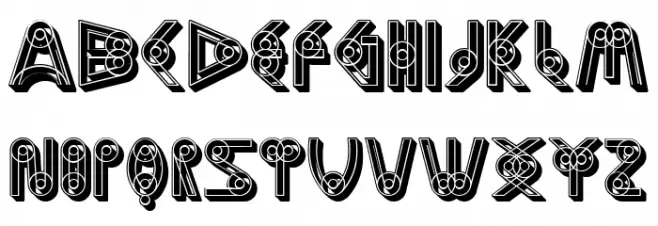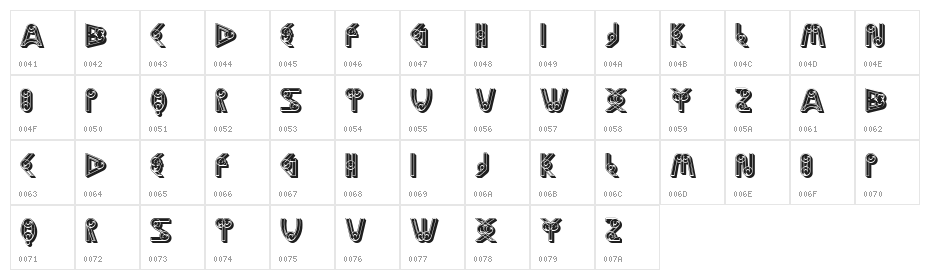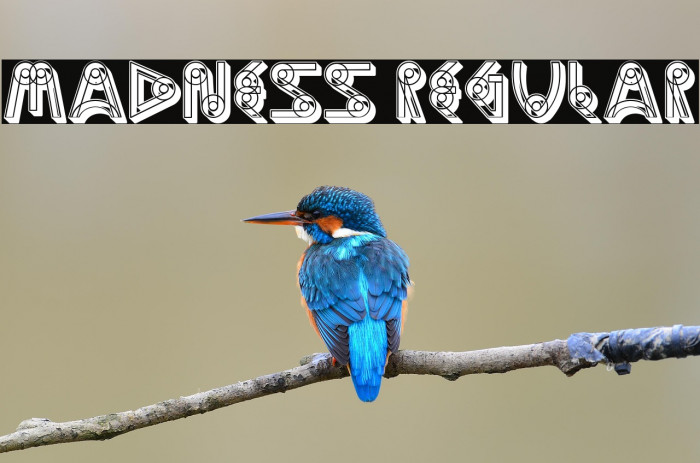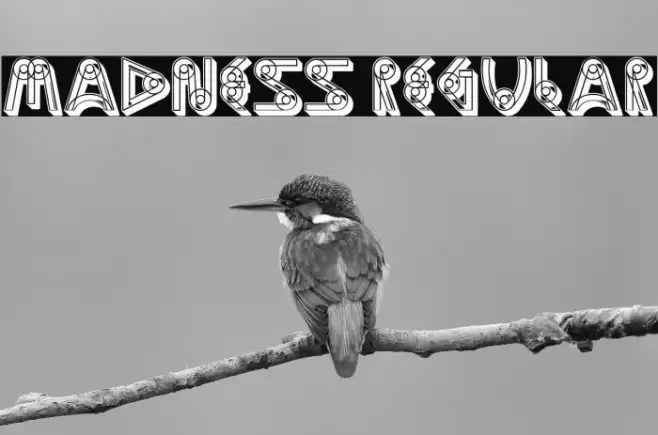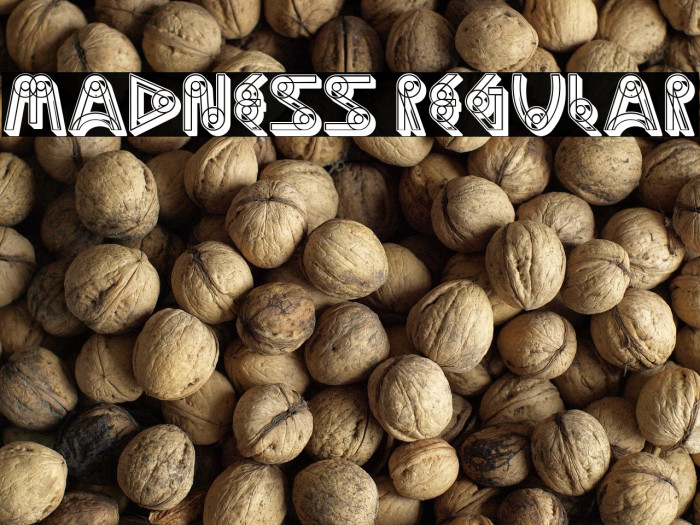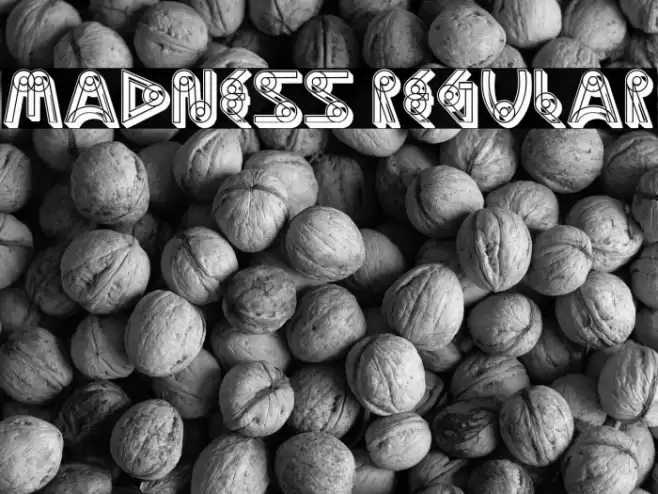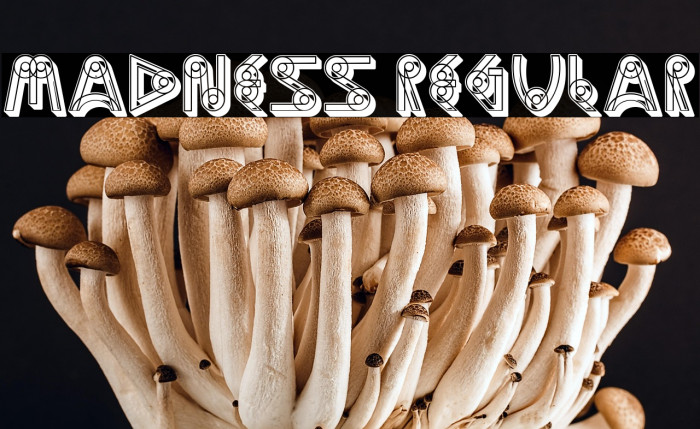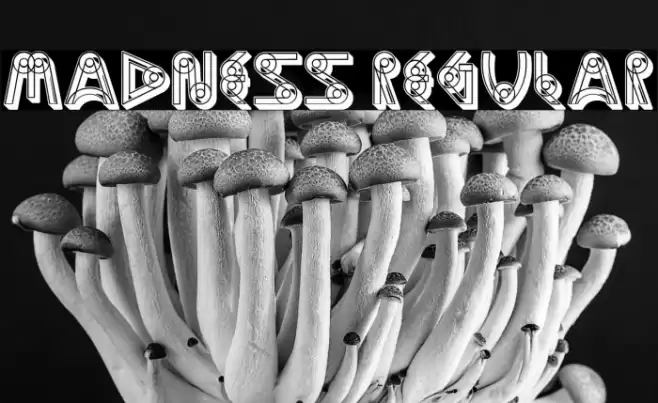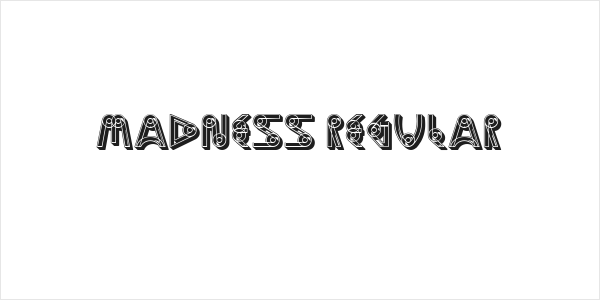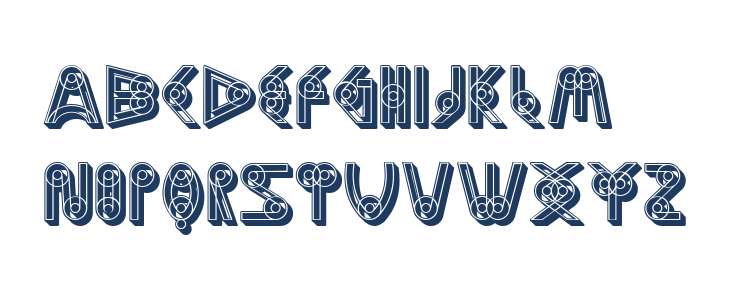
Madness Regular Font
Madness Regular Description
This font features a bold and intricate design with a three-dimensional effect. Each character is crafted with a combination of geometric shapes and lines, creating a sense of depth and complexity. The letters are outlined with a thick border, enhancing their visual impact. The style is highly decorative, making it suitable for eye-catching designs. The uppercase letters are particularly striking, with unique patterns and motifs that add to the overall aesthetic. This font is ideal for projects that require a bold statement and a touch of artistic flair.
| Proposed Projects | Ideal for posters, album covers, branding, and any project needing a bold, artistic touch. |